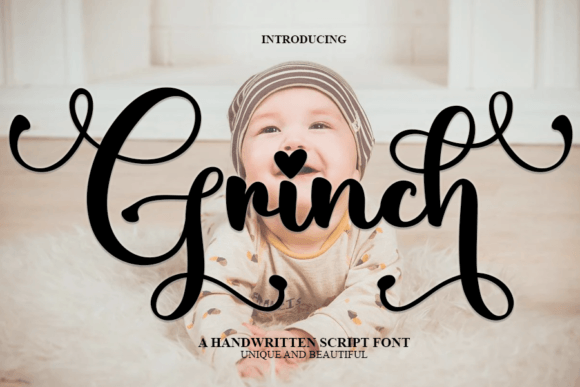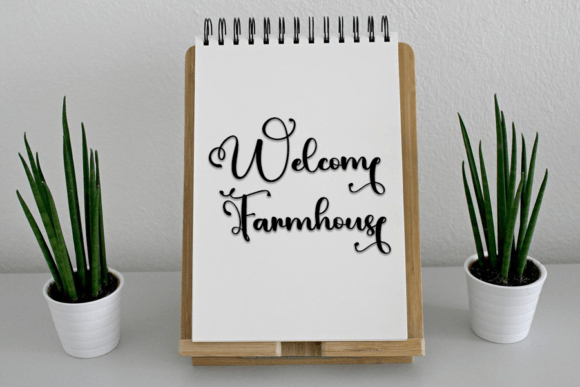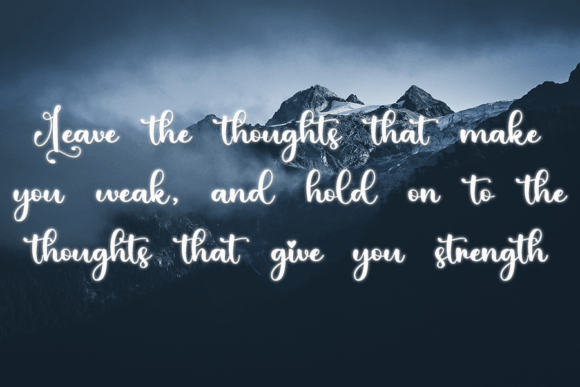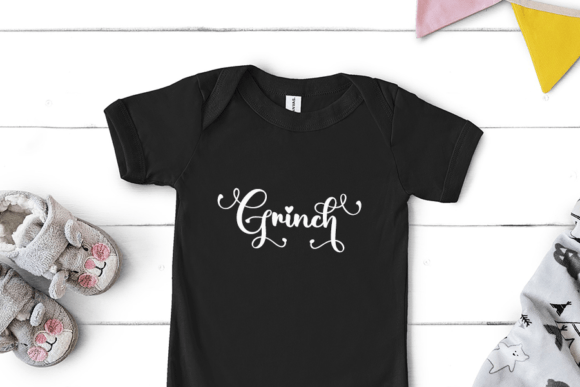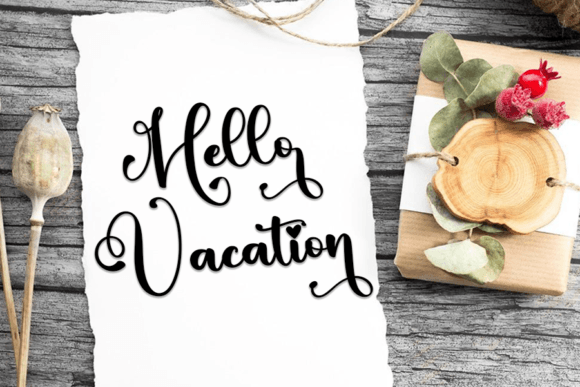
About Grinch Font
“Grinch” is a delicate handwritten font that has been thoughtfully crafted to infuse a sense of coolness and uniqueness into your designs. This versatile font can be employed for various purposes, including writing letters, creating invitations, labeling food products, designing eye-catching titles, and much more.
One of the defining features of “Grinch” is its delicate and unique style. The font’s characters possess a distinct and charming quality that adds character to your designs, making it a standout choice for projects where you want to convey a sense of personality and authenticity.
This font’s versatility ensures that it can be applied across a wide range of creative applications. Whether you’re composing heartfelt letters, designing elegant invitations for special occasions, labeling food products with a touch of sophistication, or creating eye-catching titles for various projects, “Grinch” adapts seamlessly to your creative vision.
The name “Grinch” may evoke images of a certain Christmas character, but the font itself brings a sense of uniqueness and character to your designs. The characters are crafted with precision, creating a harmonious and visually pleasing composition. “Grinch” has the power to infuse your designs with a sense of authenticity and individuality.
Incorporating “Grinch” into your design projects will undoubtedly add a touch of elegance and uniqueness. Its delicate handwritten style and distinctive character arrangement make it an ideal choice for designs that aim to make a statement and capture attention. Embrace the delicate charm and uniqueness of “Grinch” in your next project, and watch as it transforms your creations into works of art with a cool and distinct design.